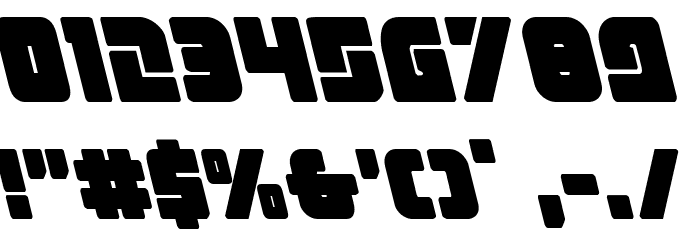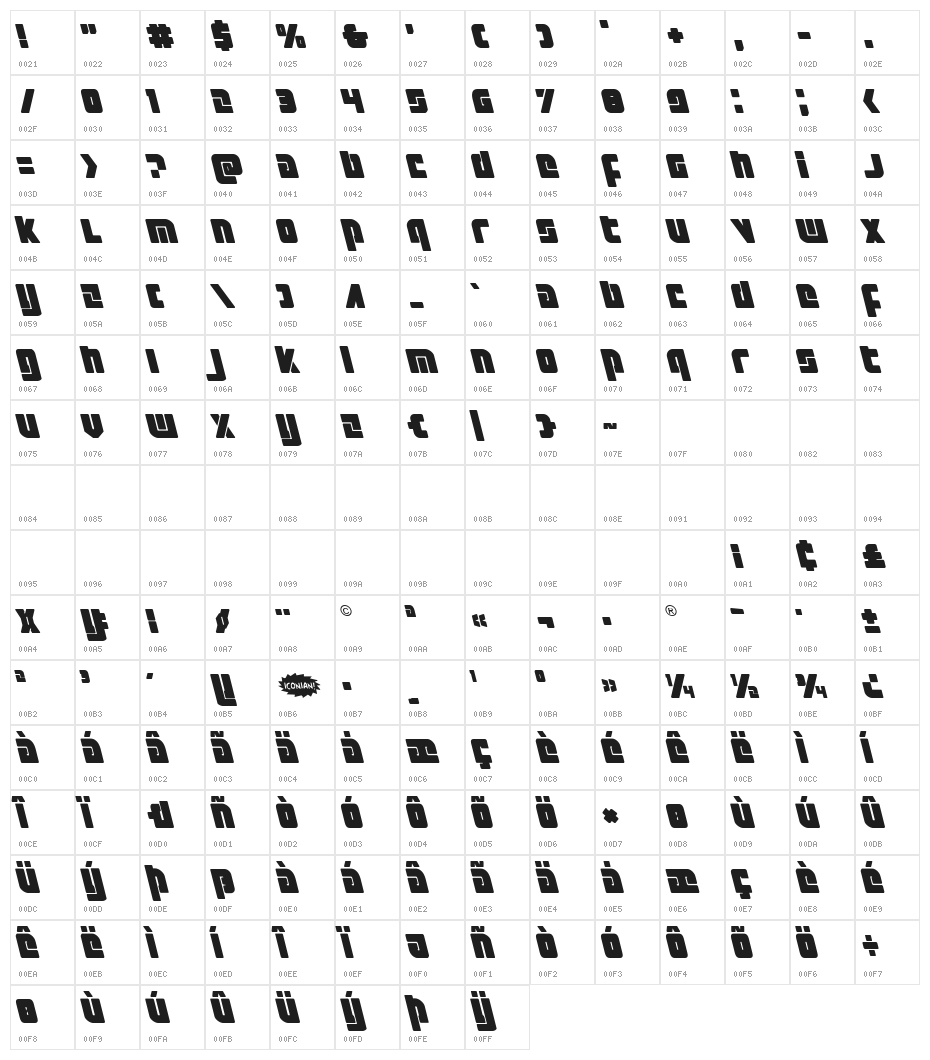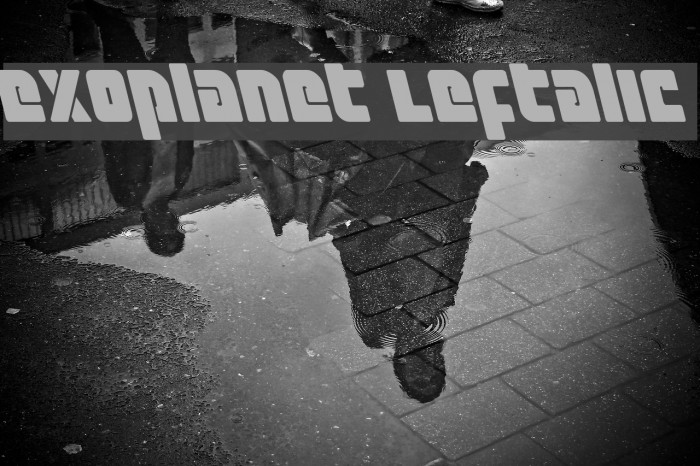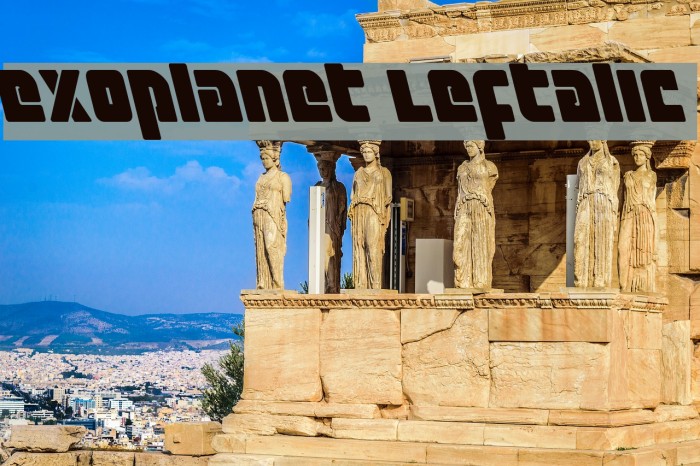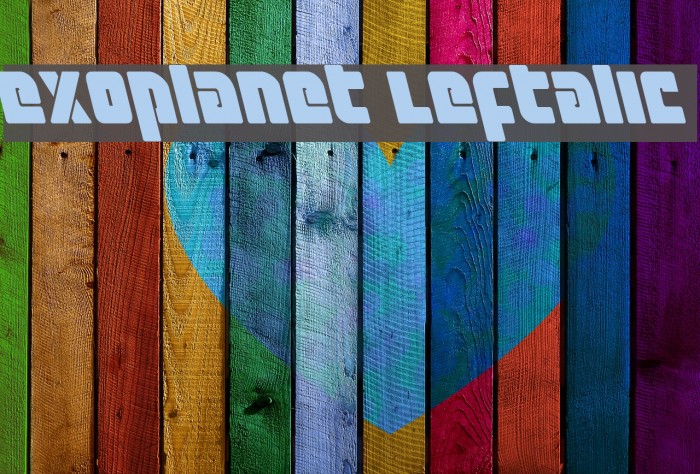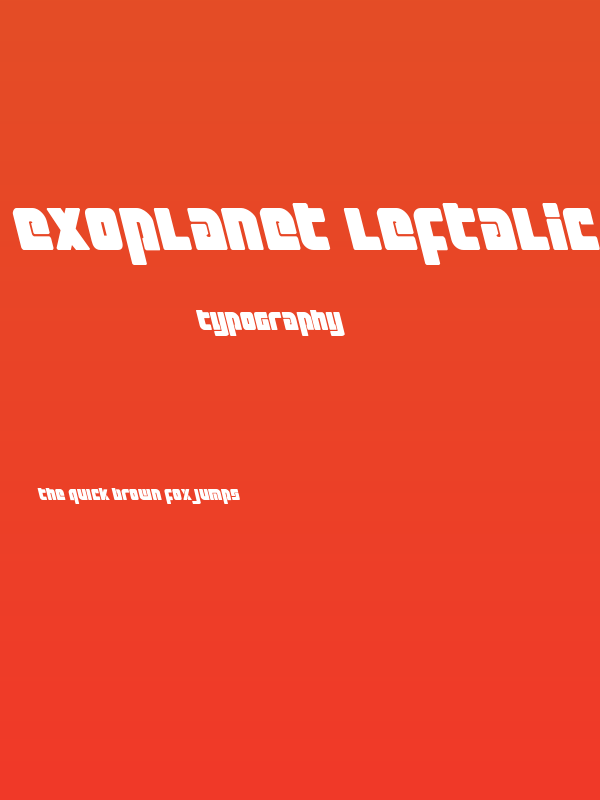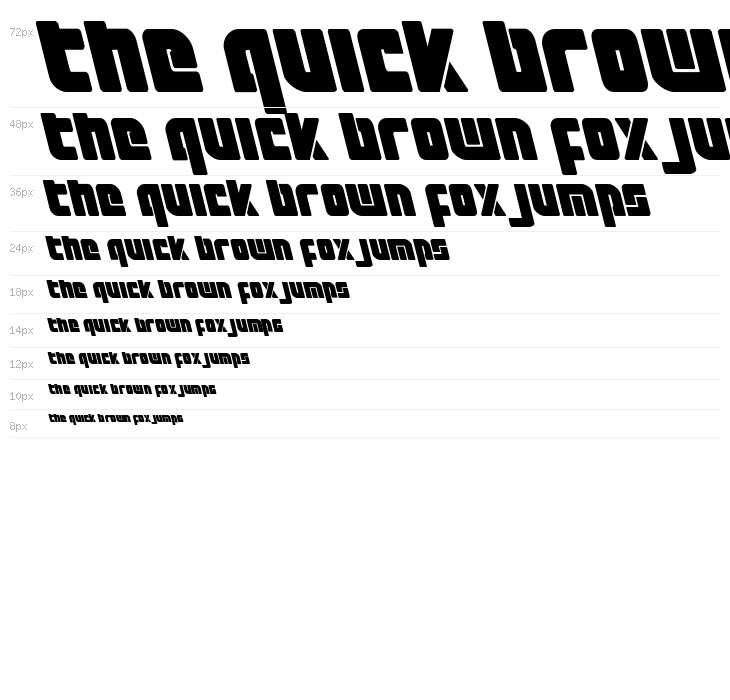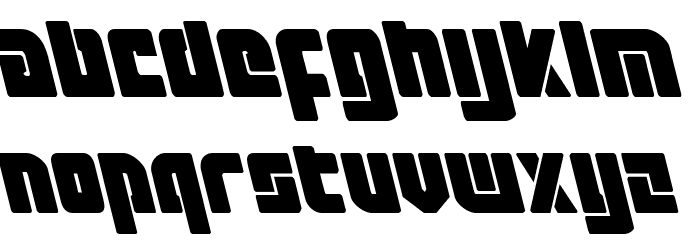
Exoplanet Leftalic Font
Exoplanet Leftalic Description
This font features a bold, futuristic design with a distinct geometric style. The characters are heavily stylized with sharp angles and a blocky appearance, giving it a strong visual impact. The letters are slanted, adding a dynamic and forward-moving feel. The uppercase and lowercase letters maintain a consistent design, while the numbers and special characters follow the same bold and angular theme. This font is ideal for projects that require a modern and edgy look.